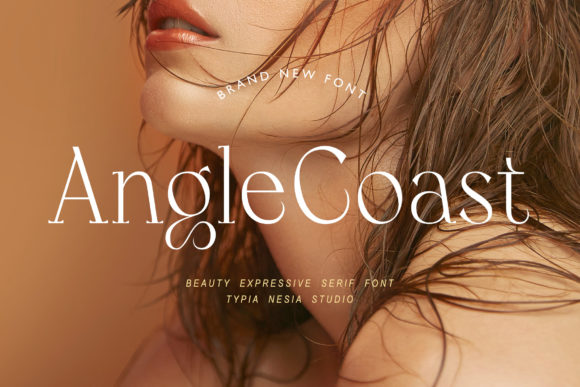
Embark on a typographic voyage with Angle Coast, the captivating serif font that will transform your creative endeavors into masterpieces. Immerse yourself in a world of elegance and expressiveness, where each letter dances with grace, leaving an unforgettable mark on your designs.
Crafted with the utmost care and attention to detail by the talented hands of Typia Nesia, Angle Coast stands as a testament to the power of typography. Its meticulously designed curves and serifs exude a timeless charm, evoking a sense of sophistication and refinement that will elevate your projects to new heights.
Unleash your creativity and let Angle Coast guide you through your crafting adventures. Whether you're designing eye-catching cards that leave a lasting impression, creating a distinctive brand identity that sets you apart, or adding a touch of elegance to your labels and packaging, Angle Coast is your perfect companion.
With Angle Coast as your font of choice, you'll discover a world of endless possibilities. Its versatility knows no bounds, adapting seamlessly to a multitude of design styles and themes. Whether you're working on a minimalist project that calls for understated elegance or a vibrant composition that demands attention, Angle Coast rises to the occasion, delivering stunning results every time.
Experience the joy of effortless creativity as Angle Coast transforms your ideas into tangible works of art. It's the perfect font for bloggers looking to elevate their online presence. With Angle Coast, your words will dance across the screen, captivating your audience and leaving them wanting more.
So, embrace the beauty of Angle Coast and unlock the full potential of your creativity. Let its elegant strokes guide you towards typographic excellence, leaving an everlasting impression on all who encounter your designs.